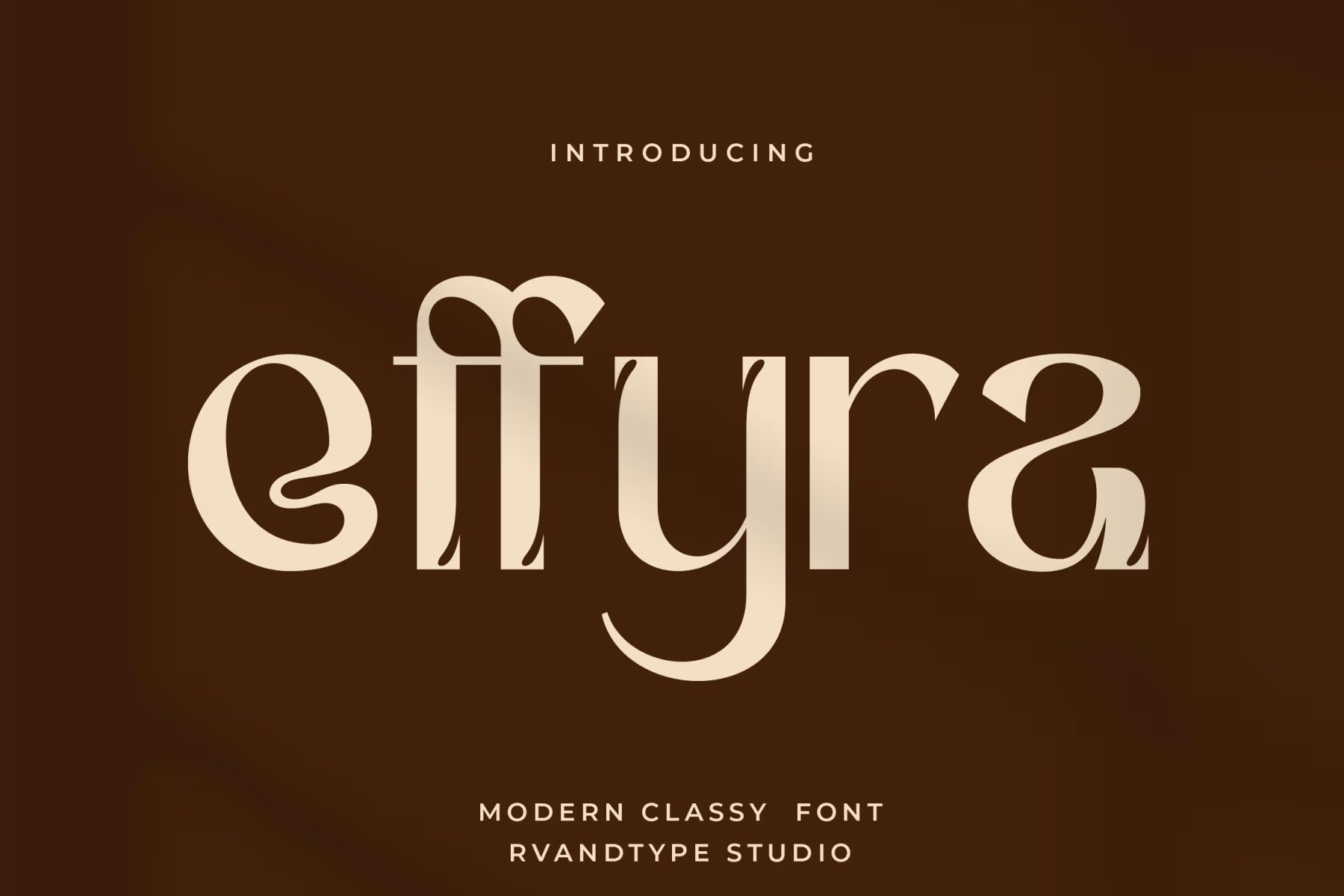
Effyra Font
Effyra Font is a professionally designed typeface that delivers clarity, structure, and consistent performance across various design applications. Effyra was born from the idea that typography should speak softly, yet leave a lasting impression. Inspired by modern elegance and timeless beauty, Effyra blends smooth curves, refined serifs, and graceful proportions into a font that feels calm, confident, and luxurious.
Each character is carefully crafted to flow naturally—creating harmony between strength and softness. Subtle alternates and ligatures add a poetic touch, allowing words to feel more expressive and alive, without losing clarity or balance.
Effyra is designed for stories that deserve elegance. It doesn’t shout—it whispers sophistication.